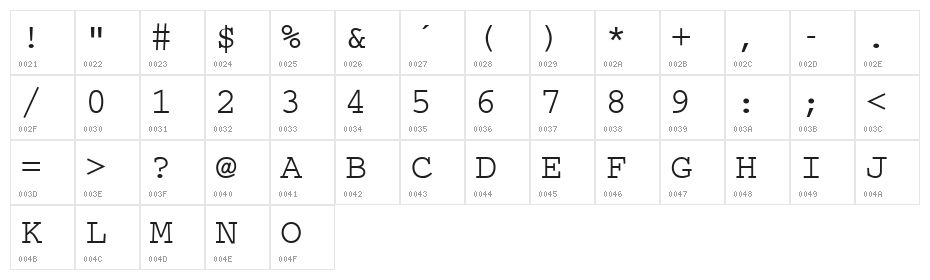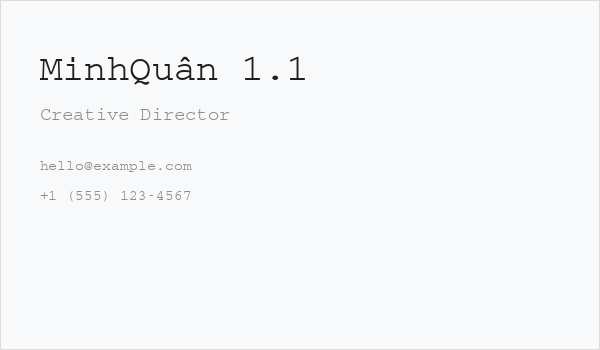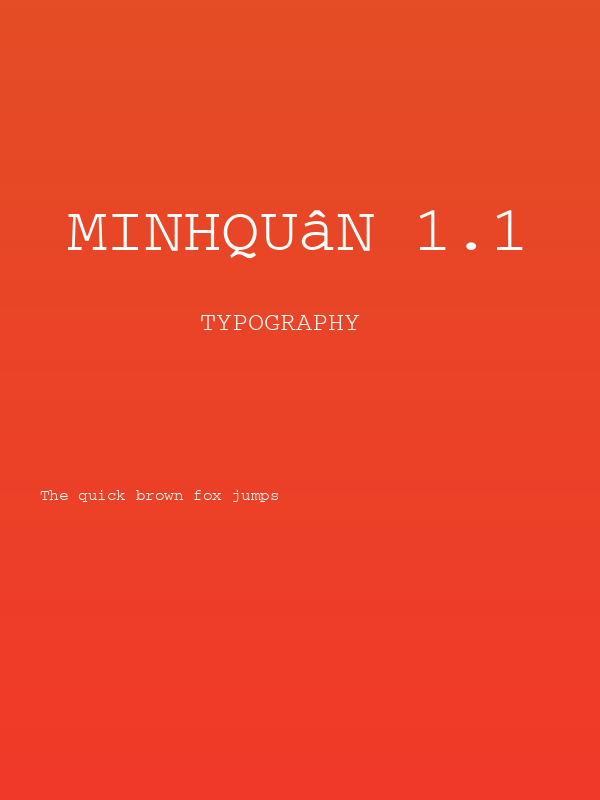
MinhQuân 1.1 Font
MinhQuân 1.1 Description
This font features a clean and modern design with a monospaced style, characterized by uniform character width. The uppercase and lowercase letters are distinct and clear, with a geometric structure that enhances readability. The numerals are straightforward and align well with the overall aesthetic. Special characters are well-defined, maintaining the font's consistent style. The font's simplicity and precision make it suitable for technical documents, coding environments, and any project requiring a clear and structured appearance.
| Use Case | Coding, Technical documents, Structured layouts |
| Proposed Projects | Ideal for coding, technical documents, and structured layouts. |